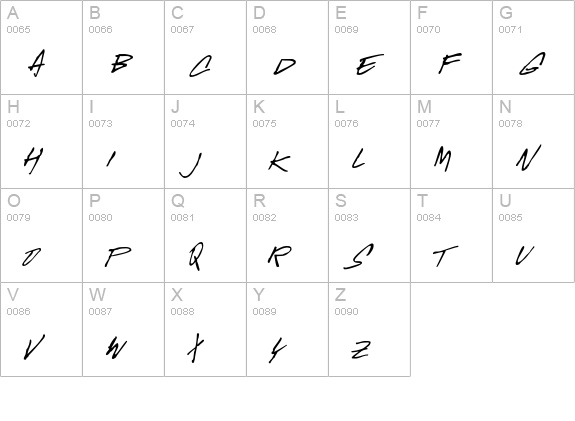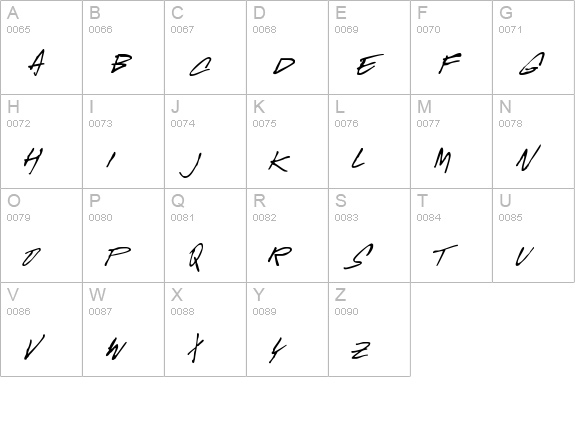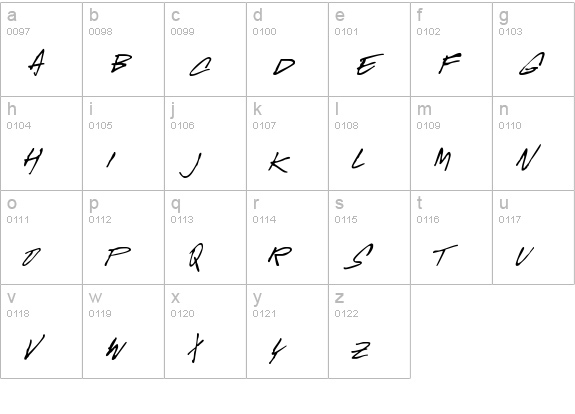
McGurrScript Font Details
McGurrScript is a beautifully crafted, elegant font that exudes sophistication and charm. Its flowing, cursive style adds a touch of class to any design project, whether it be invitations, branding, or marketing materials. The smooth curves and graceful strokes of McGurrScript create a sense of fluidity and grace that captivates the eye. Best of all, McGurrScript is completely free to download at FontsMarket.com. This means you can elevate your projects with this stunning font without breaking the bank. Don't miss out on the opportunity to add a touch of luxury to your designs with McGurrScript - download it today and let your creativity soar!